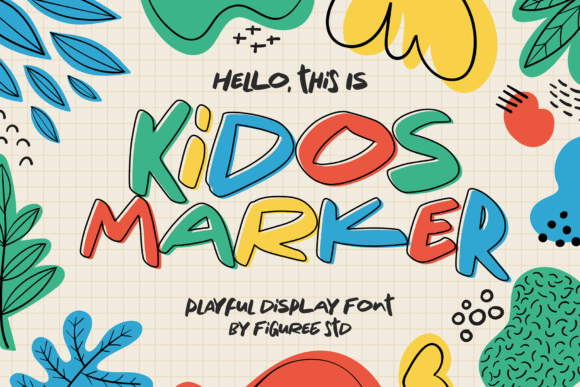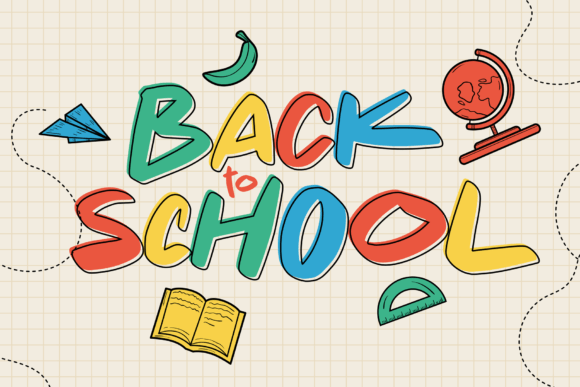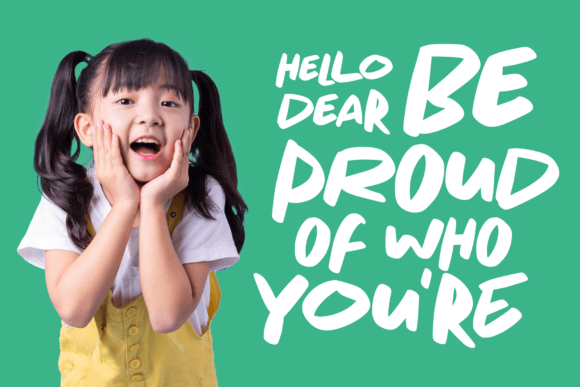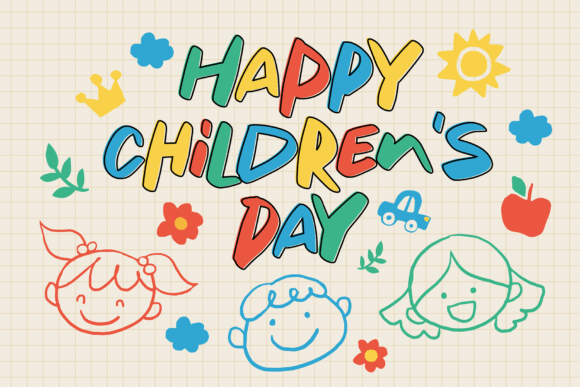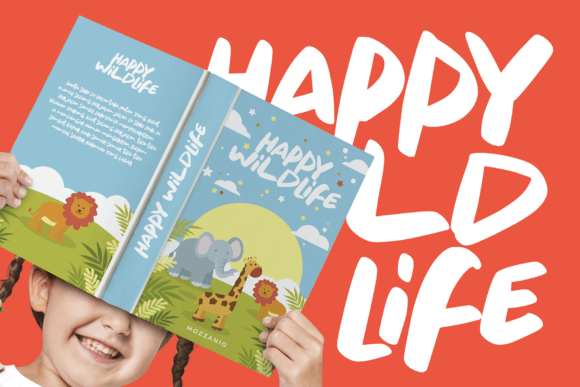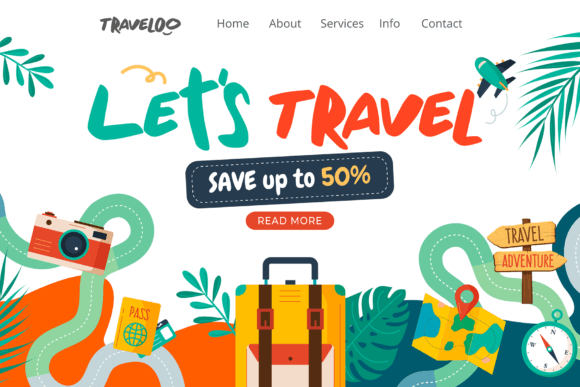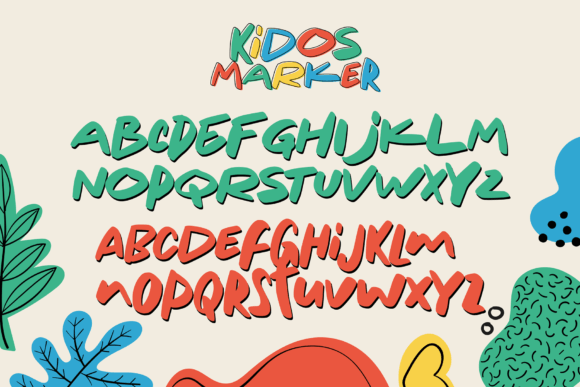
Discover the Joy of Kidos Marker Font
Have you ever been in a moment where you’re flipping through a kid’s coloring book, and suddenly you’re inspired to create something magical? That’s exactly what happens when you come across the Kidos Marker Font. This delightful font is designed to capture the essence of children’s art, bringing a touch of whimsy and playfulness to your designs.
With the Kidos Marker Font, you can add a dash of fun and personality to your projects, making them stand out in a crowded market. Whether you’re a graphic designer, artist, or simply someone who loves to create, this font is sure to bring a smile to your face. Its unique design and versatility make it a valuable addition to any designer’s toolkit.
Kidos Marker Font Key Features
- Font Style: Casual, Marker Font, ideal for headings and titles
- Unique Characteristic: Distinctive marker-like strokes and rounded edges for a playful feel
Kidos Marker Font Review
First impressions matter, and Kidos Marker Font has definitely caught my eye ✨. The unique blend of futuristic and playful elements makes it perfect for projects that require a mix of edginess and approachability. The font’s versatility shines through in its wide range of applications, from digital interfaces to branding materials.
- Effective use of bold and rounded shapes creates a visually appealing aesthetic ✨
- Compatible with various digital platforms, including web and mobile devices ✨
- Suitable for use in titles, headings, and body text, thanks to its readable size and style ✨
However, I do have some concerns ⚠️. The font’s boldness can sometimes be overwhelming, and it may require additional adjustments to balance it out. Additionally, the lack of a comprehensive font package (including multiple weights and styles) may limit its creative possibilities.
Overall, Kidos Marker Font is a solid choice for designers looking to add a modern twist to their projects. While it may not be perfect, its strengths far outweigh its limitations. With some careful consideration and adjustments, this font can be a valuable addition to any design toolkit.
For best results, use Kidos Marker Font for titles, headings, and emphasis.
Kidos Marker Font is ideal for:
Children’s book illustrations
Handmade or DIY projects
Street art and graffiti-inspired designs
Adding a playful, handwritten touch to your design